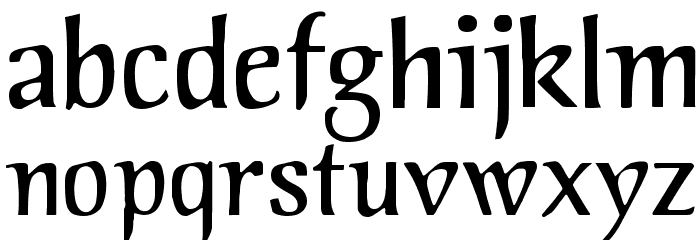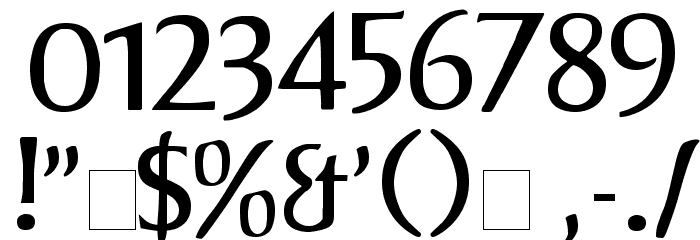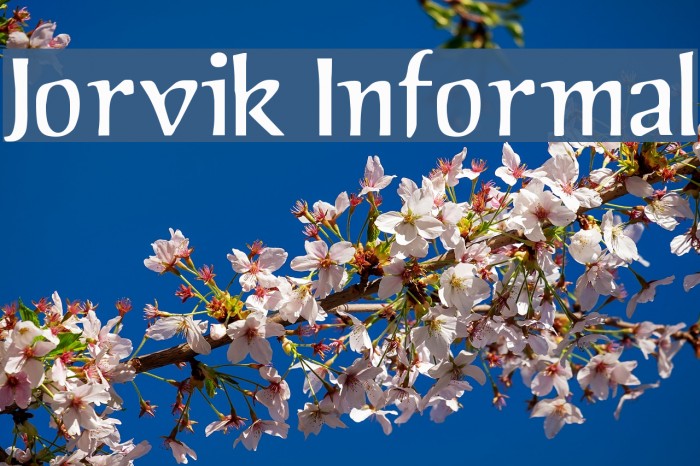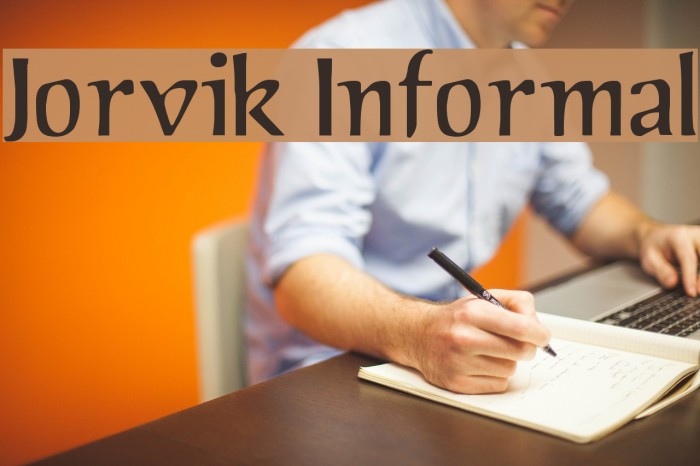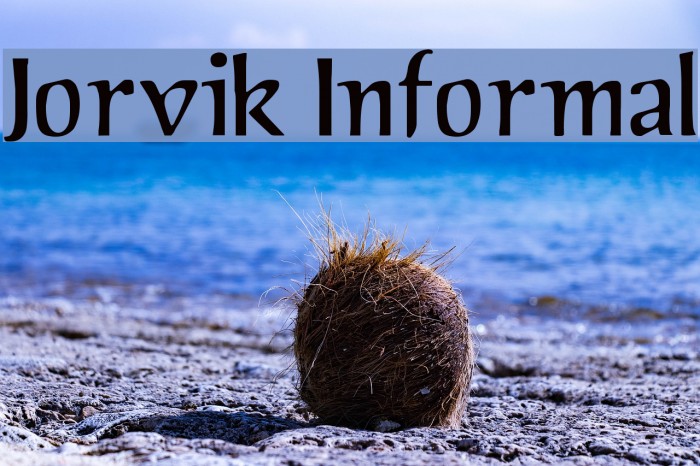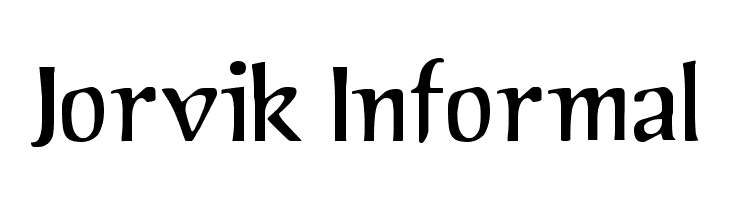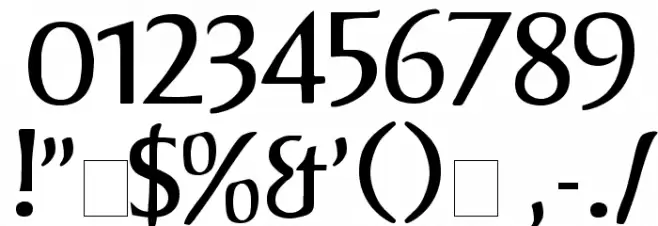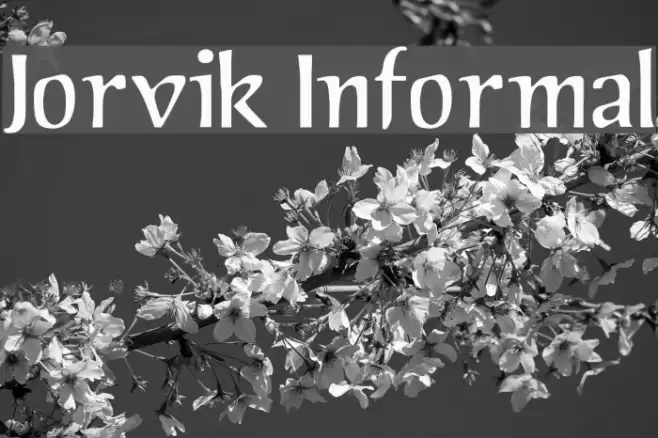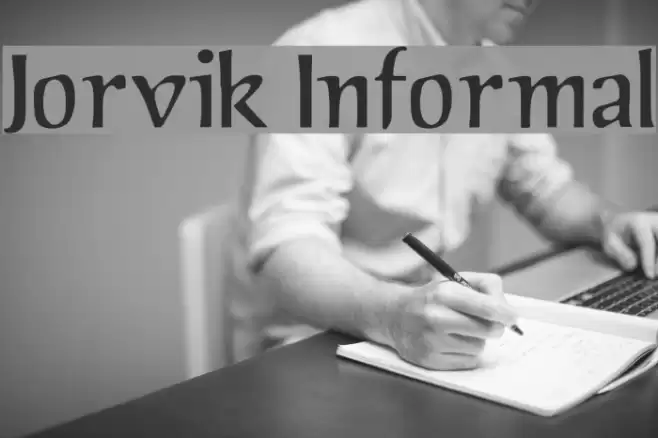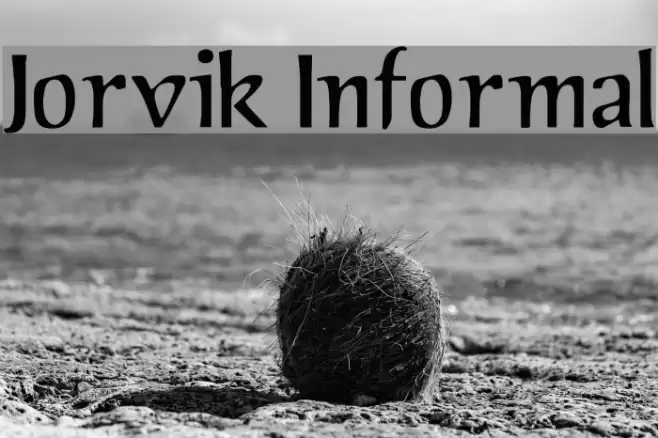
Jorvik Informal Font
This font features a playful and informal style, combining elements of both serif and handwritten aesthetics. The uppercase letters are bold and slightly condensed, with a distinctive flair that adds character. The lowercase letters maintain a consistent flow, with unique curves and angles that give them a whimsical appearance. Numbers are clear and legible, with a slight tilt that matches the overall informal tone. Special characters are creatively designed, adding to the font's charm. This font is ideal for projects that require a touch of personality and creativity.
A playful, informal font with a mix of serif and handwritten styles.
- Font: Jorvik Informal
- Proposed Projects: Ideal for greeting cards, children's books, playful branding, and creative posters.
- Overall Style: Informal, Playful
- Use Case: Headlines, Logos, Creative projects